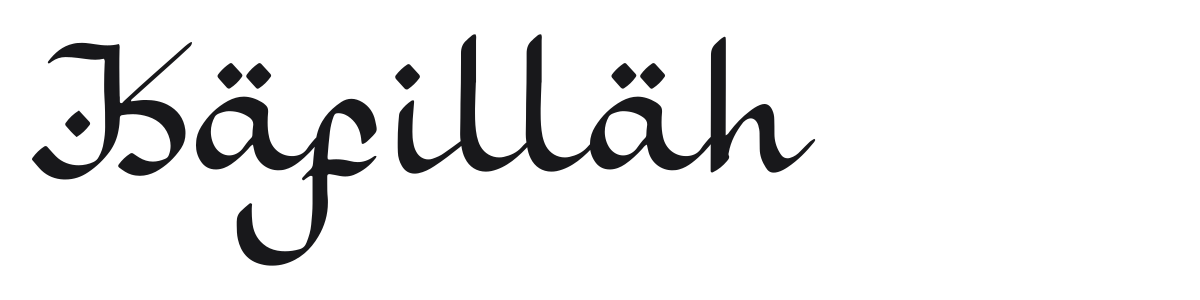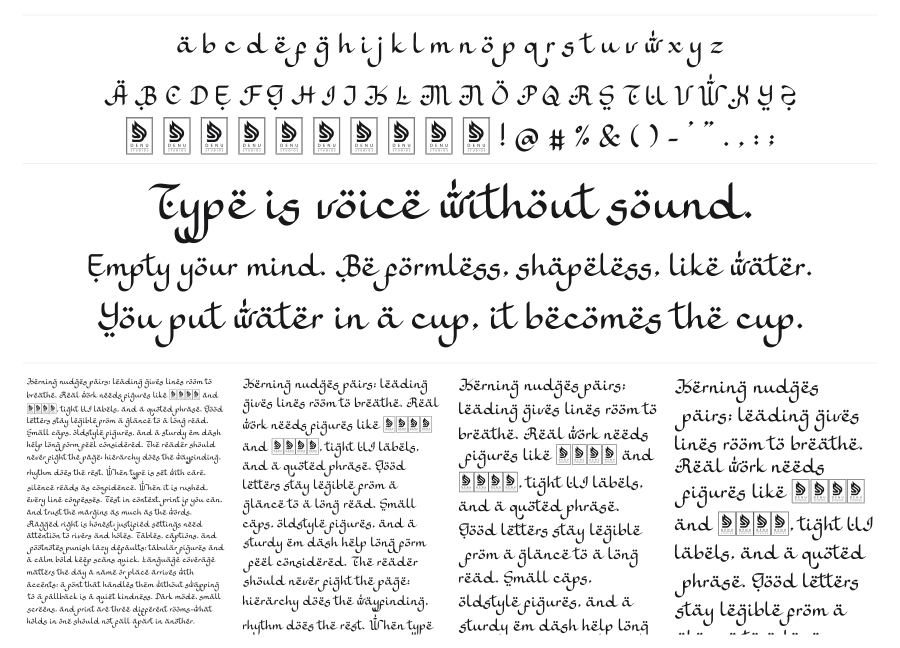
Kafillah
Kafillah is a Latin typeface built entirely around Arabic calligraphic aesthetics, translating the flowing loops, teardrop terminals, and rhythmic stroke variation of traditional Arabic script into Western characters. The result is a typeface that feels genuinely exotic without sacrificing legibility at display sizes. It works best for branding, packaging, and editorial headlines where cultural character is the point.